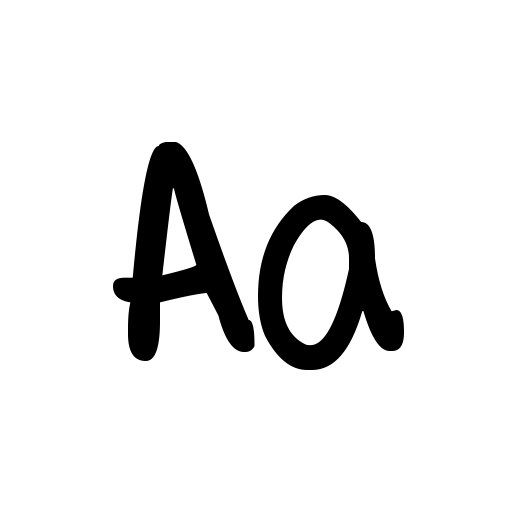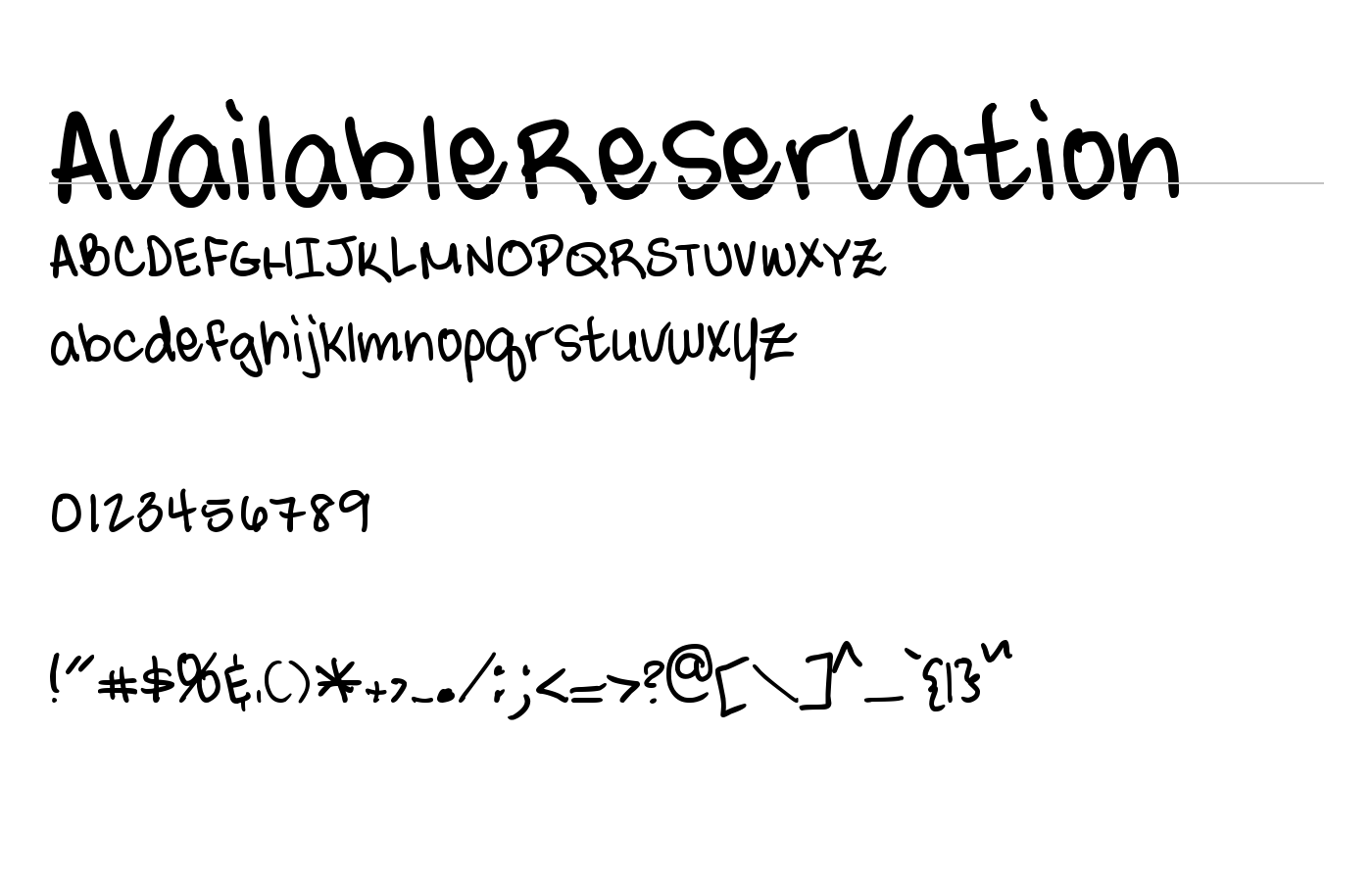
AvailableReservation is a playful and informal handwritten sans serif font characterized by its uneven, casual strokes and quirky letterforms. Its light weight and moderate x-height create a friendly, approachable feel ideal for creative projects, children's materials, and casual branding. This font works well for logos, headings, and designs where a personal, hand-drawn touch is desired, adding warmth and charm to any layout.
AvailableReservation Font
About AvailableReservation Font
| Font family | AvailableReservation Font |
| Designer | Max Infeld |